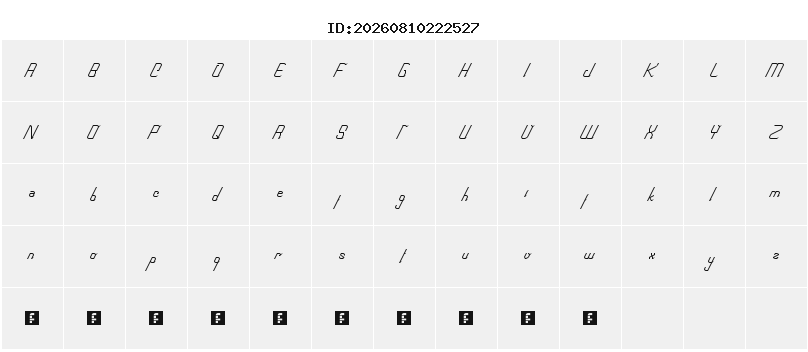
roboscript Preview
• Font Name: roboscript
• Font ID: FontStruct roboscript
• Full Font Name: roboscript Regular
• PostScript Name: roboscript
• Character Count: 53
• Designer: softhunterdevil
• Description: ‚Äúroboscript‚Äù was built with FontStruct
About roboscript.ttf
roboscript.ttf is a modern, elegant sans-serif font designed for ultimate readability and visual harmony. Perfect for branding, headlines, web design, and print materials.